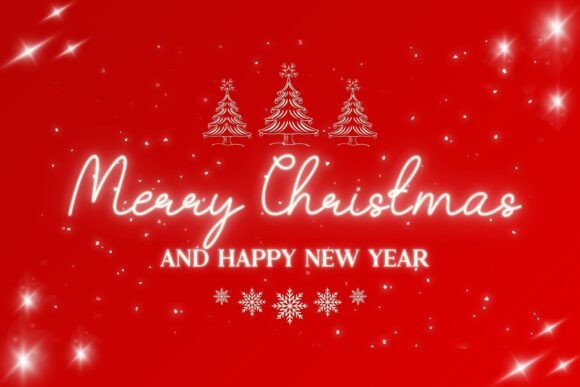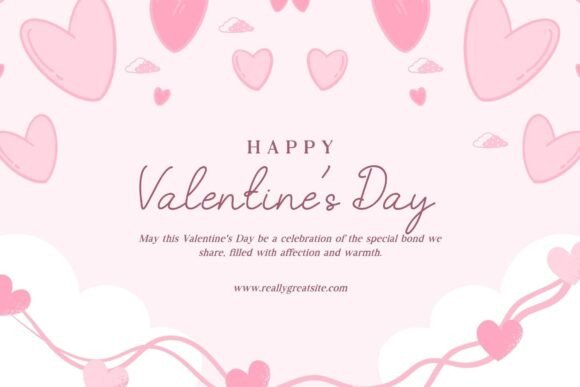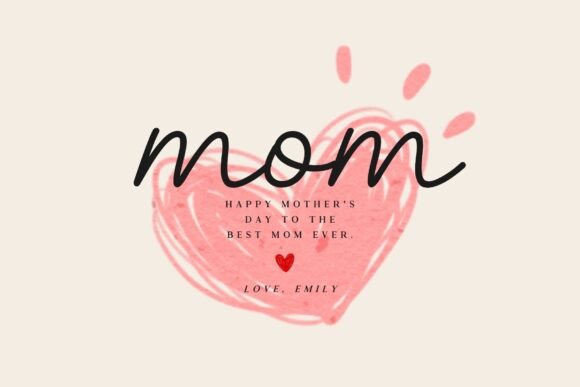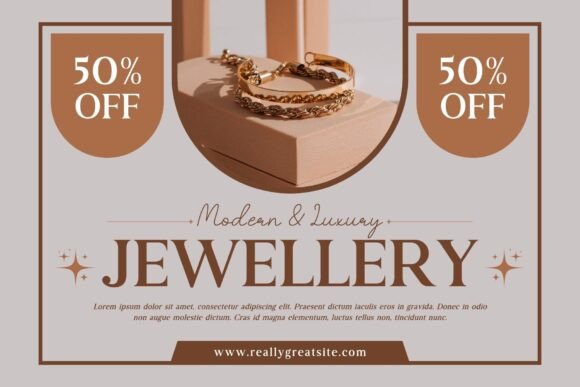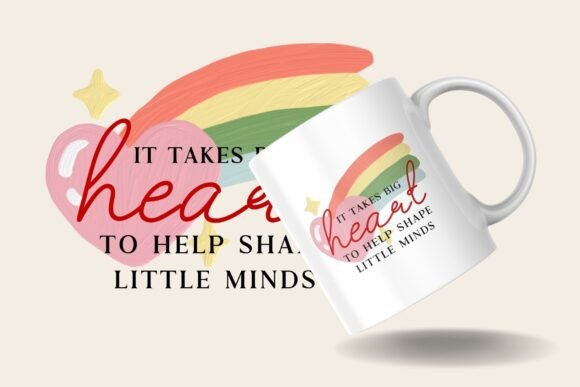
Introduction to Fox Binley and Fox Sophia Font Font
Fonts play a crucial role in design, and the Fox Binley and Fox Sophia Font font is a typeface that brings both character and versatility to any project. Whether you’re working on a branding project, a website, or a print design, the Fox Binley and Fox Sophia Font font offers a unique style that can elevate your work.
βFox Binley and Fox Sophia,β a Duo Font set that combines elegance with personality.
Fox Binley is a classic serif font, offering a bold and sophisticated look, ideal for making a strong statement Fox Sophia is a soft, cursive script font that adds a touch of warmth and creativity, perfect for balancing the serifβs boldness.
Key Features of Fox Binley and Fox Sophia Font Font
Why Choose Fox Binley and Fox Sophia Font Font?
The Fox Binley and Fox Sophia Font font is more than just a typeface β it’s a design tool that helps you communicate your message with style and clarity. Its unique character set and versatile design make it suitable for a wide range of applications, from elegant invitations to bold headlines.
With its carefully crafted letterforms and balanced proportions, the Fox Binley and Fox Sophia Font font ensures readability and visual appeal across all mediums.
What makes Fox Binley and Fox Sophia Font font special?
The Fox Binley and Fox Sophia Font font stands out with its unique design, exceptional readability, and versatility across various design applications.